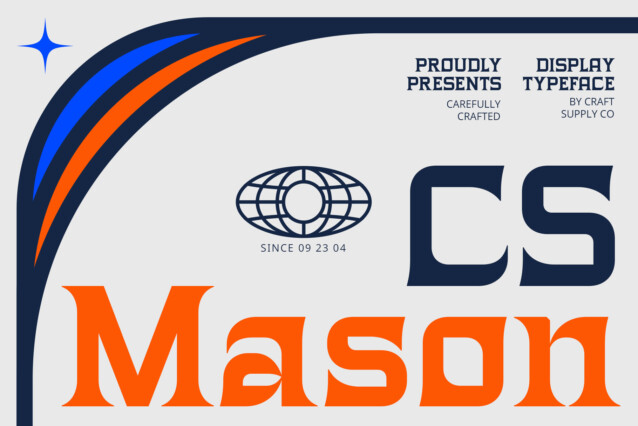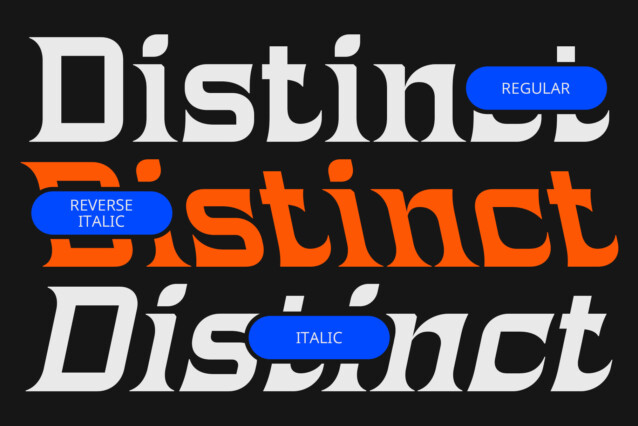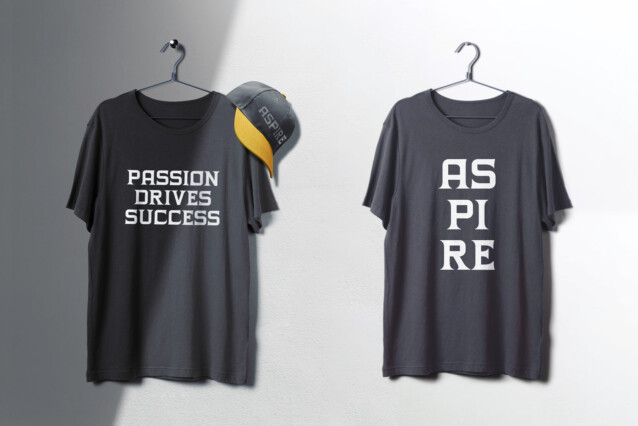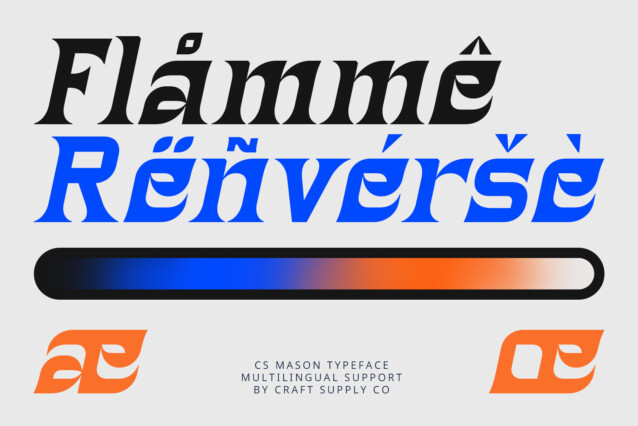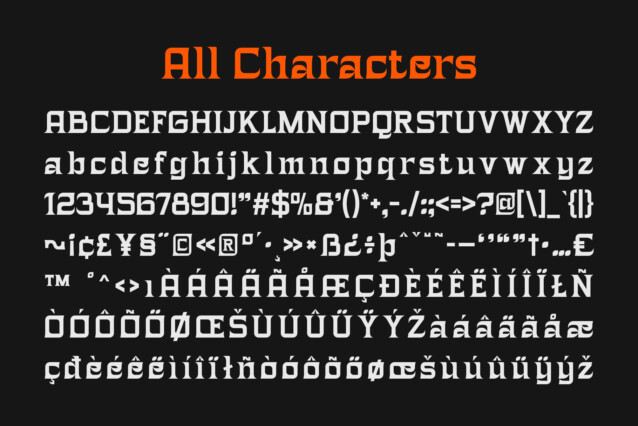
CS Mason Font
CS Mason Font is a modern serif font that exemplifies contemporary design through its clean lines and balanced proportions. This font effortlessly combines elegance and professionalism, making it a perfect choice for projects that demand a refined aesthetic. The minimalist elements of CS Mason enhance readability while still providing a touch of artistic flair, allowing it to stand out in a crowded visual landscape.